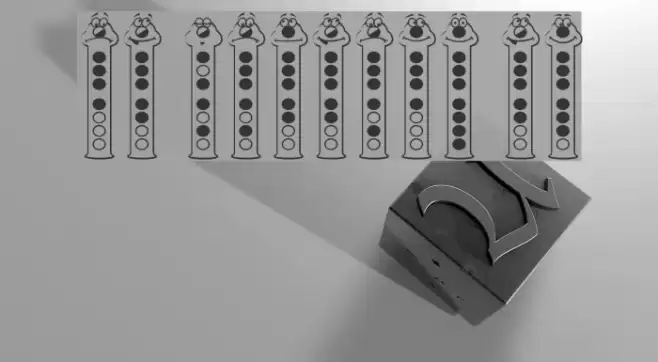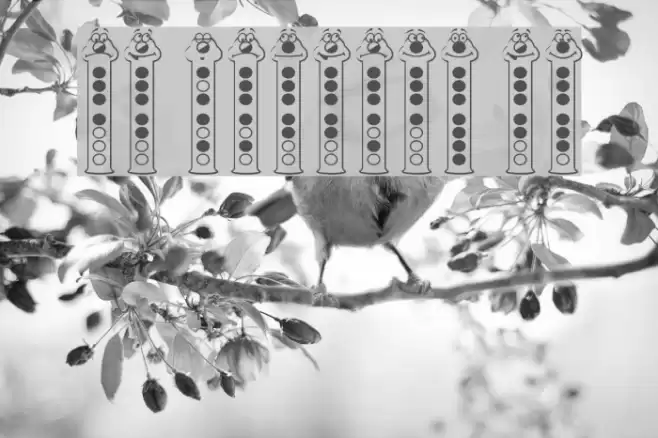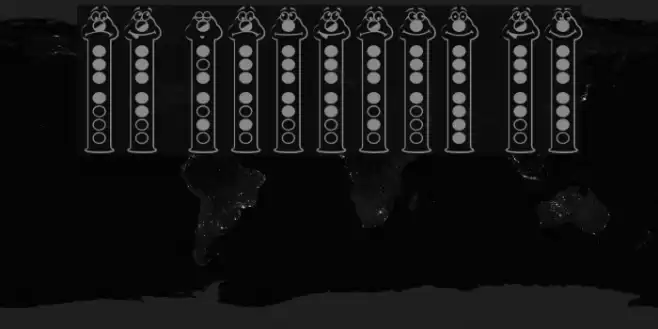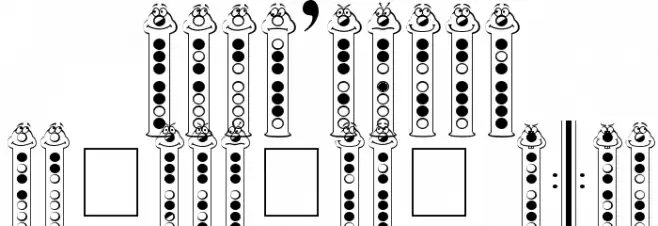
RecorderFaces Font
RecorderFaces Description
This font features a whimsical and playful design, with each character represented by a cartoonish recorder instrument with a face at the top. The characters are creatively depicted using the holes and body of the recorder to form letters and numbers, adding a unique and entertaining visual element. The style is highly decorative, making it suitable for projects that aim to capture attention with a fun and lighthearted tone. The font is not suitable for body text due to its intricate design but can be effectively used in headlines or creative projects where a playful aesthetic is desired.
A playful, decorative font featuring cartoon recorder instruments forming characters from Uncategorized fonts.
- Proposed Projects: Ideal for children's books, educational materials, music-themed posters, or any project requiring a fun and whimsical touch.
- Overall Style: Whimsical, Playful, Decorative
- Use Case: Headlines, Logos, Creative projects